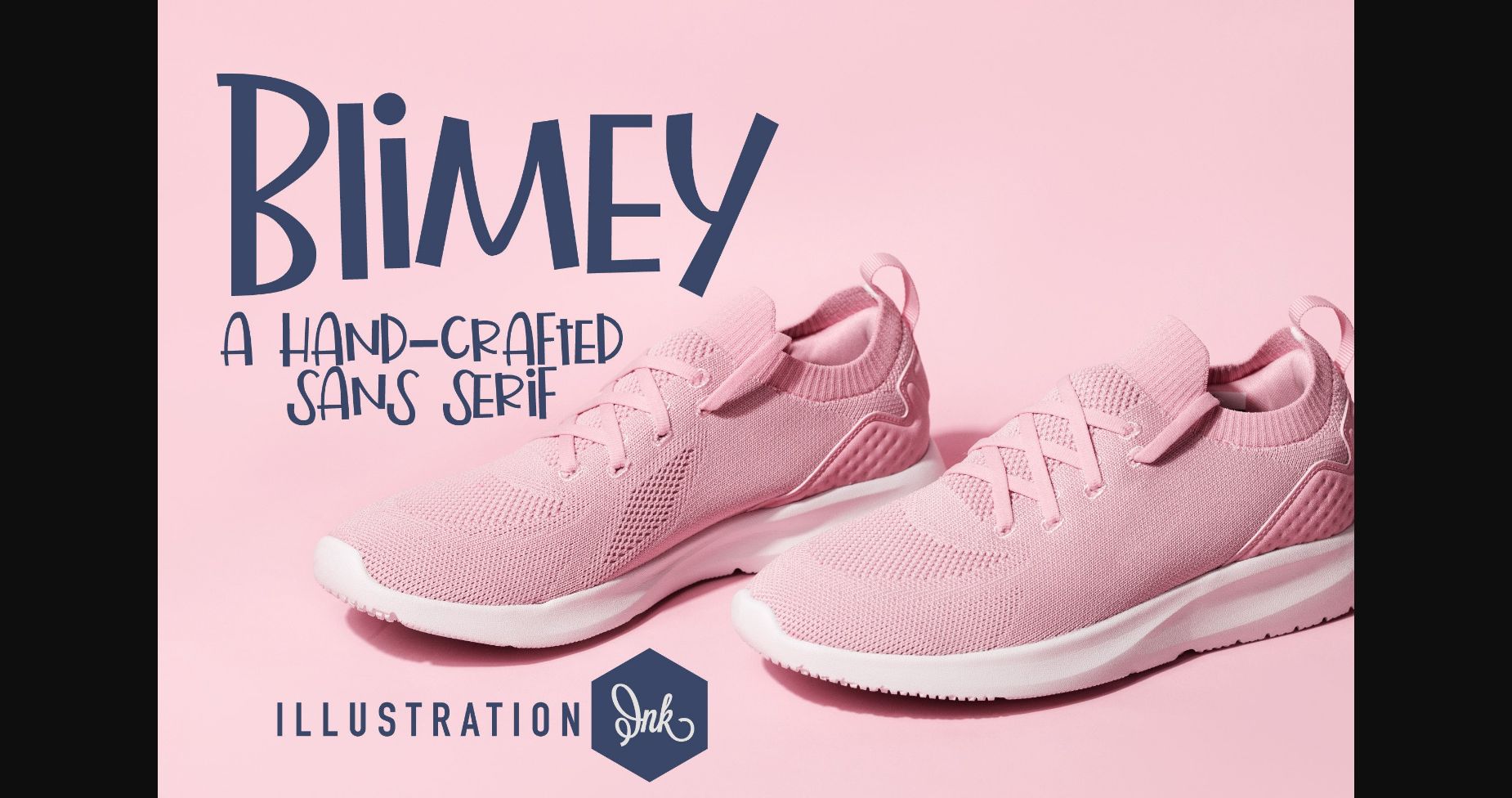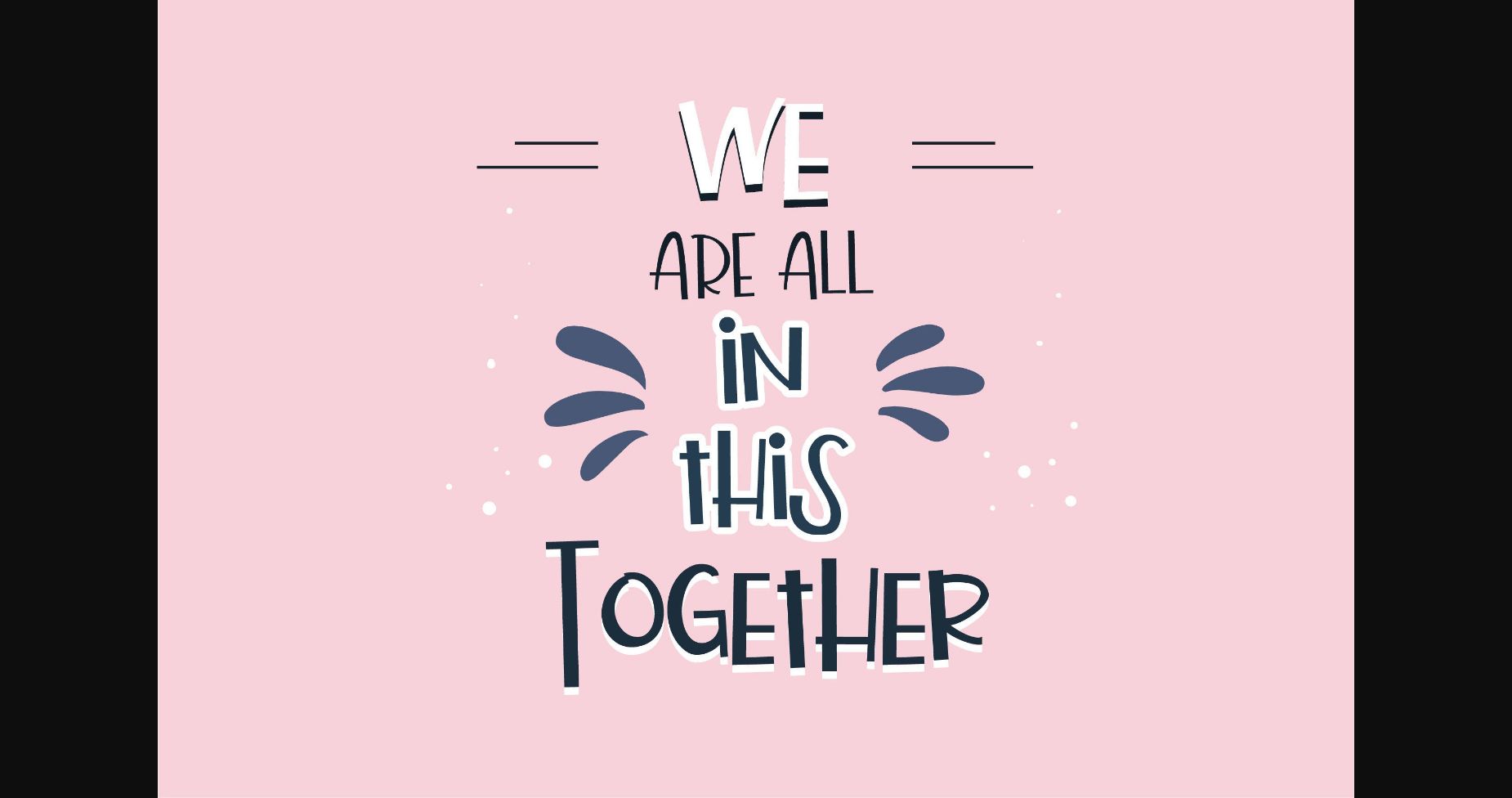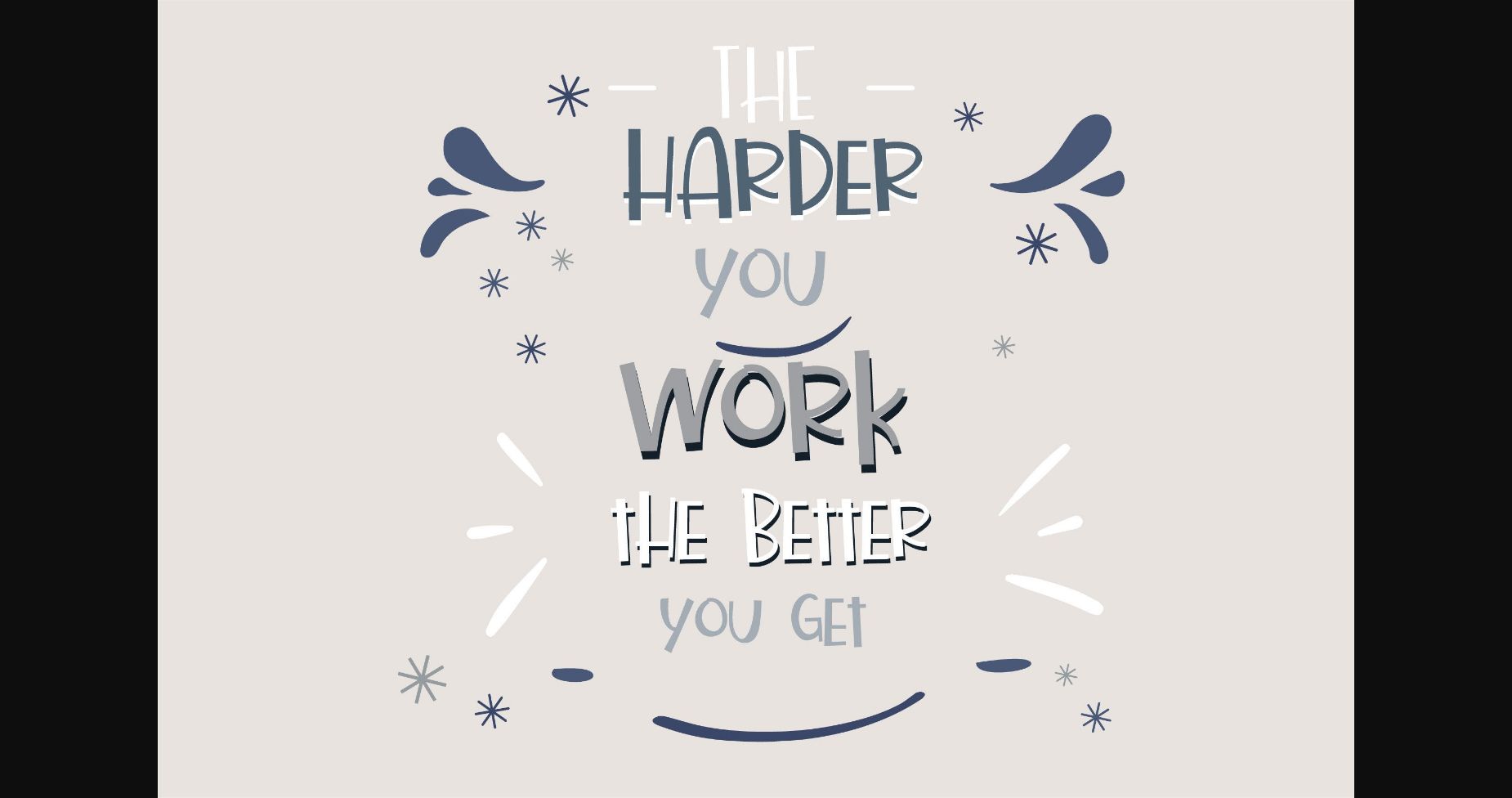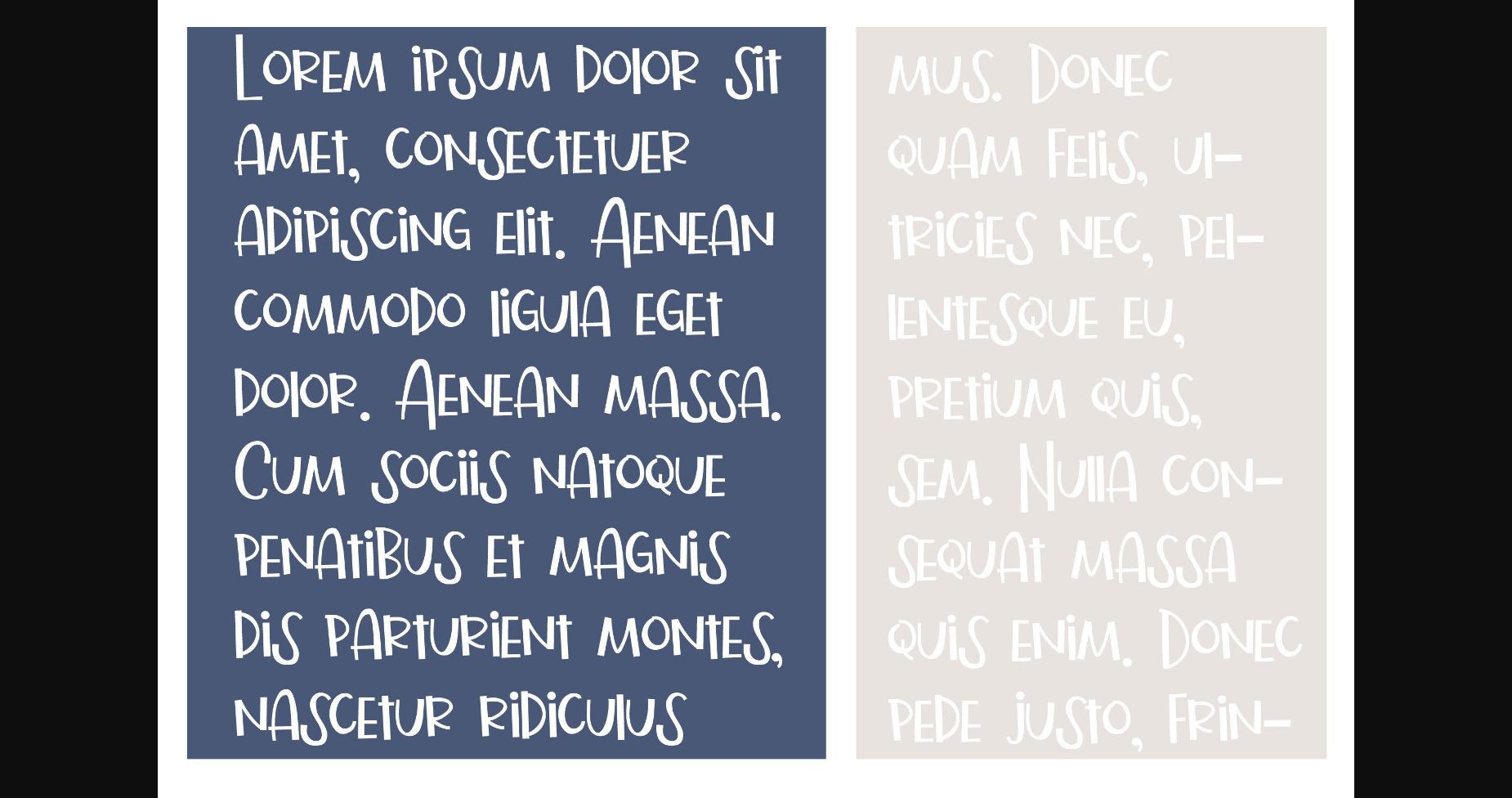
About Blimey Font
This sans serif font is blocky, silly, and very crafty. It can beautifully complement your product packaging, personal branding, business cards, storybooks, and other lovely creations.